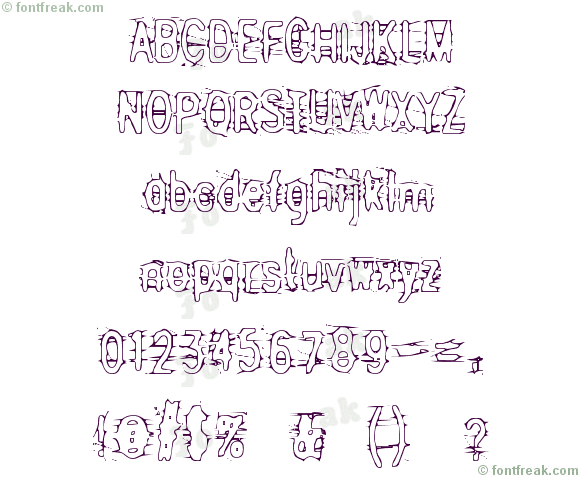
Angry bitch
About Angry Bitch
The Angry Bitch font by Mr. Fisk is a striking display typeface that captures attention with its bold, aggressive aesthetic. This font belongs to the decorative category, characterized by its playful yet fierce style that perfectly embodies its name. The stroke weight varies dramatically, giving it a sense of dynamic energy, while the high contrast between thick and thin lines adds depth and visual interest. The letterforms exhibit a quirky, slightly irregular shape that contributes to its unique personality, making it an ideal choice for designs that aim to evoke strong emotions.
One of the standout features of the Angry Bitch font is its spacious letter spacing, which enhances readability while maintaining a bold presence. The font is adorned with exaggerated serifs and whimsical curves, further amplifying its distinctive character. These design elements make it suitable for a variety of creative applications. It shines in contexts such as edgy movie posters, vibrant music festival graphics, and attention-grabbing restaurant menus. Additionally, it can be effectively used in social media graphics and promotional materials aimed at a youthful audience.
The Angry Bitch font appeals primarily to graphic designers, small business owners, and content creators who seek to make a statement with their designs. Its unique, unapologetic style offers a refreshing alternative to more conventional typefaces, allowing users to convey their message with attitude and flair.
What sets the Angry Bitch font apart from other display typefaces is its ability to blend humor and aggression seamlessly, making it perfect for brands that want to stand out in a crowded market. Whether you’re looking to infuse your project with personality or just want to make a bold statement, the Angry Bitch font free download is an essential addition to your design toolkit.